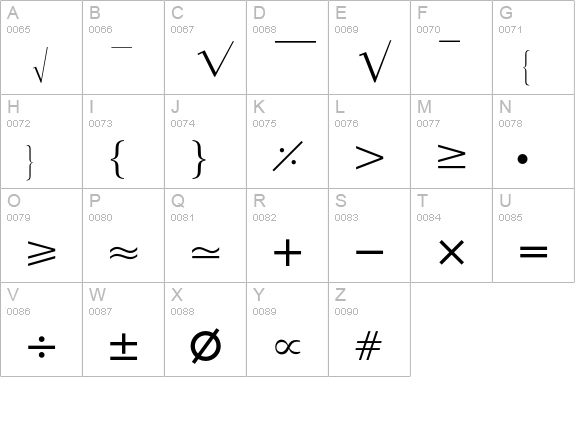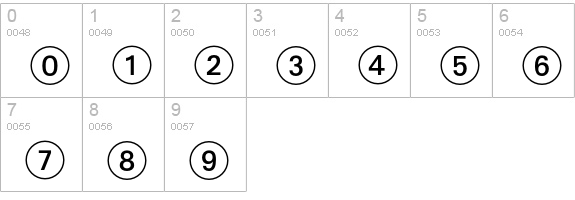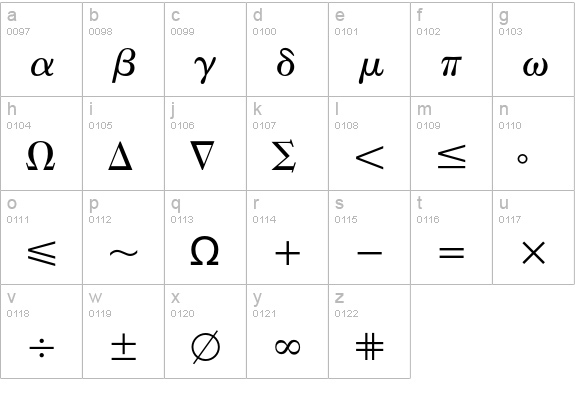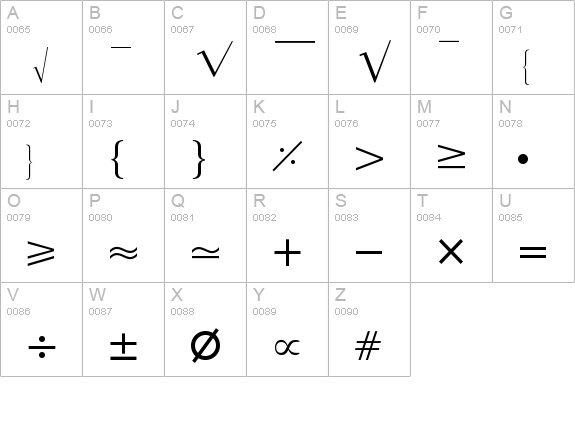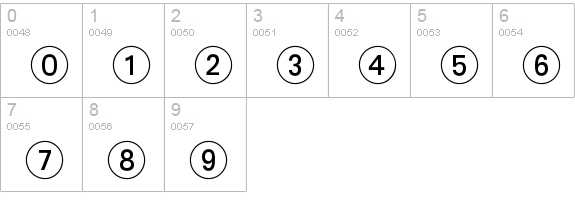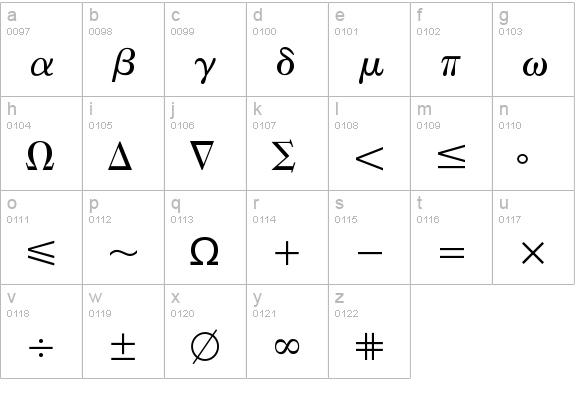
European Pi 2 Font Details
European Pi 2 is a beautiful and versatile font that exudes elegance and sophistication. With its classic European-inspired design, this font is perfect for a wide range of projects, from invitations to branding to editorial design. The clean lines and graceful curves of European Pi 2 make it a timeless choice for any design application. Best of all, European Pi 2 is completely free to download at FontsMarket.com. This means you can add this stunning font to your collection without any cost, making it a valuable resource for designers and creatives alike. Don't miss out on the opportunity to enhance your projects with the beauty and refinement of European Pi 2 - download it today and elevate your designs to new heights.